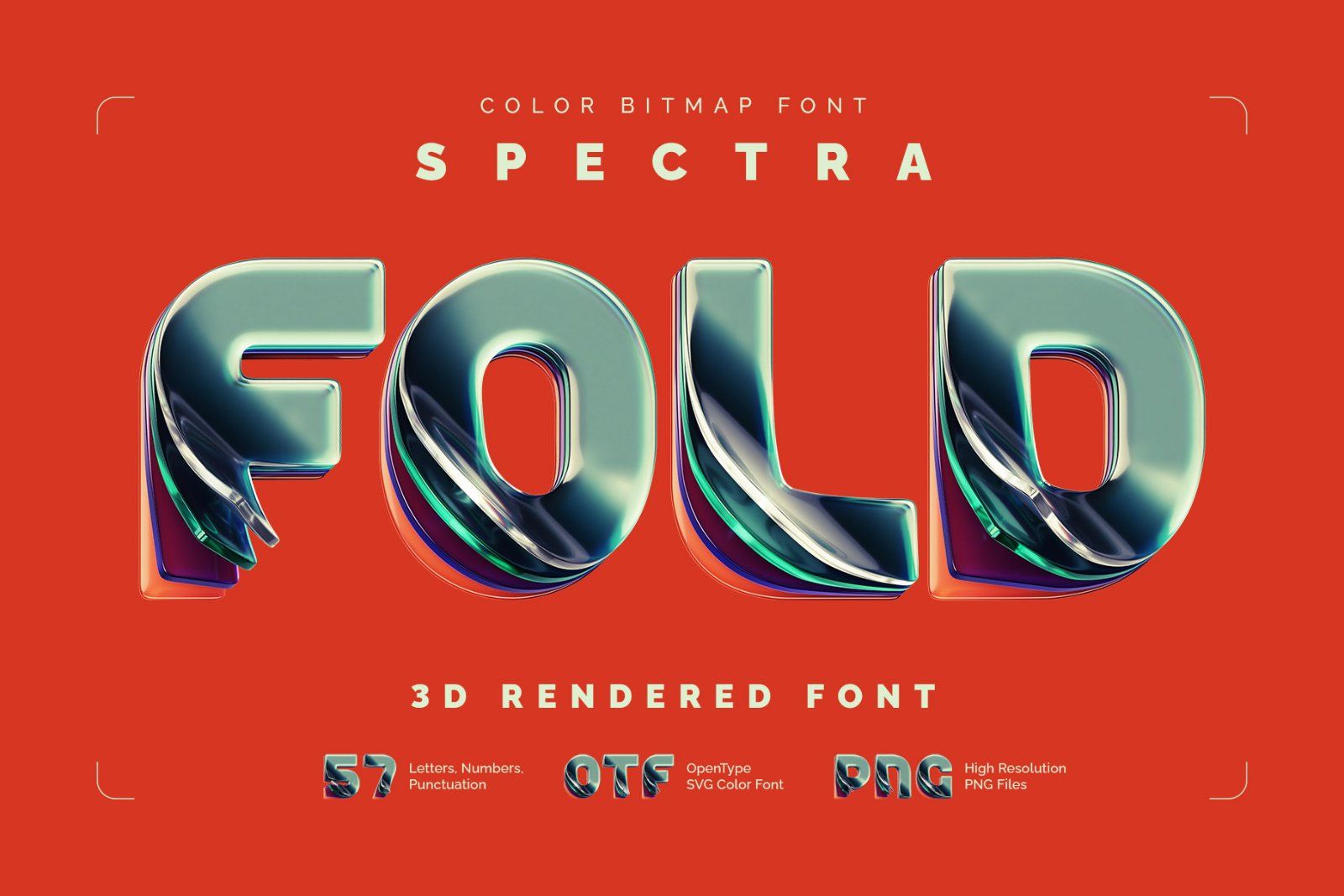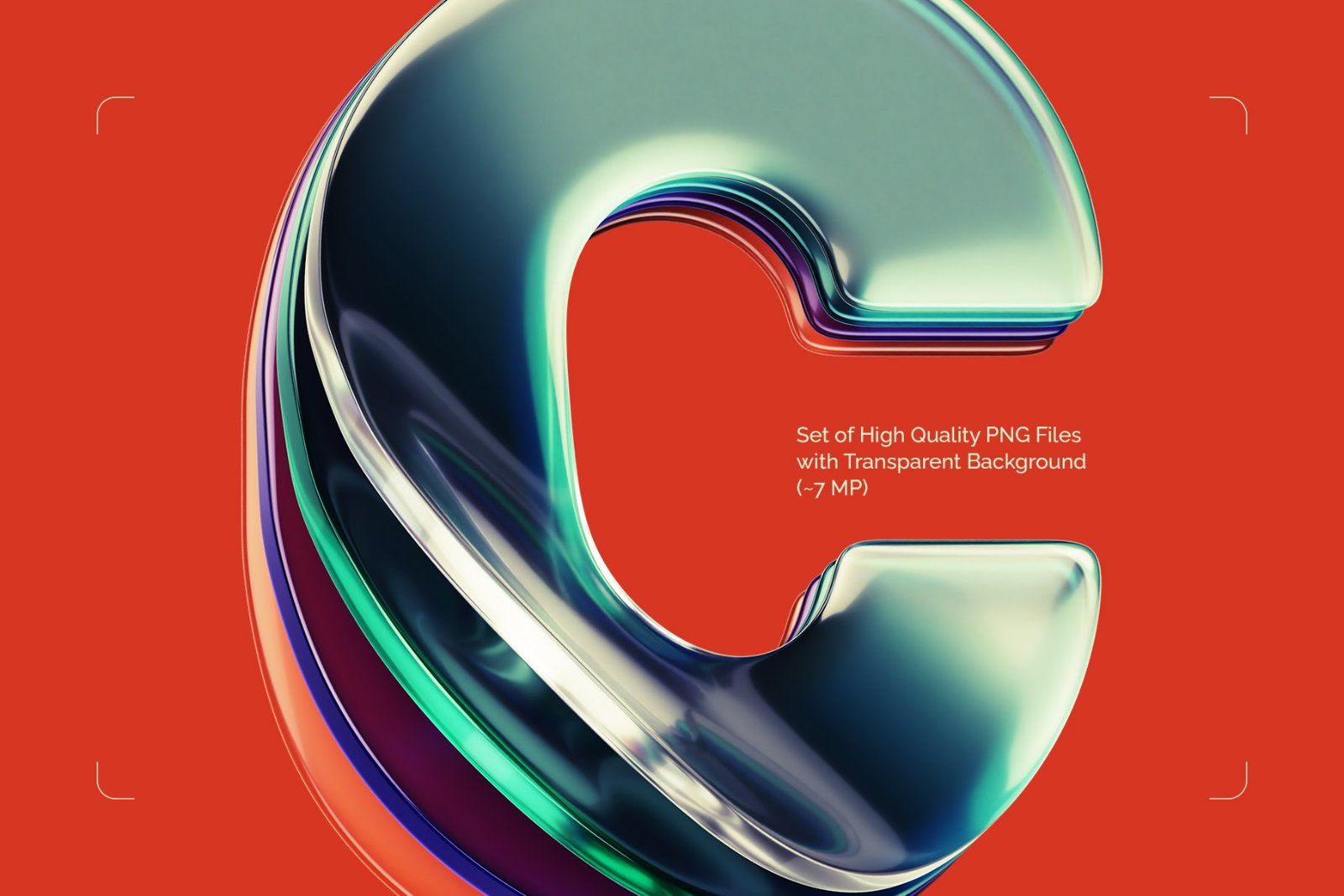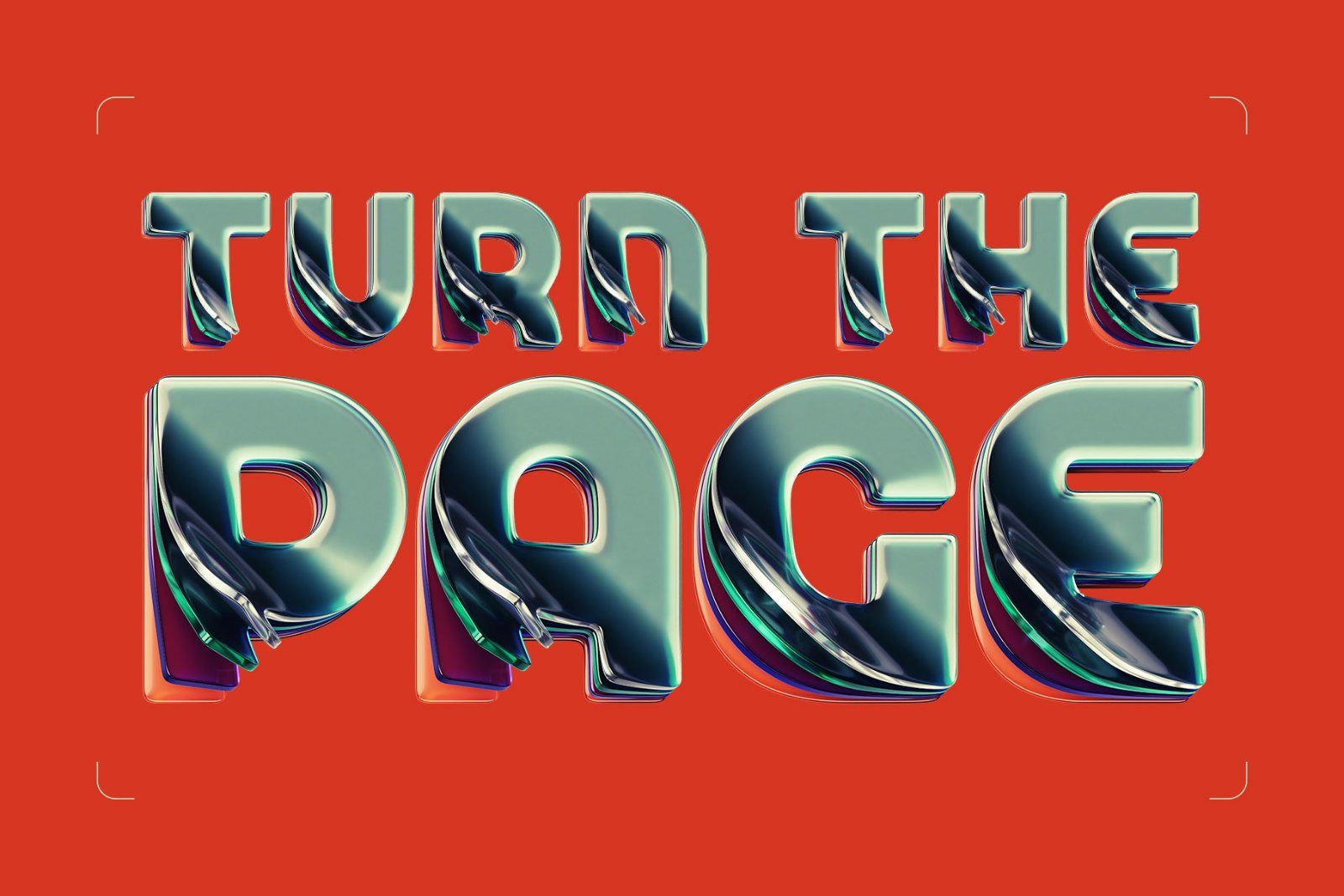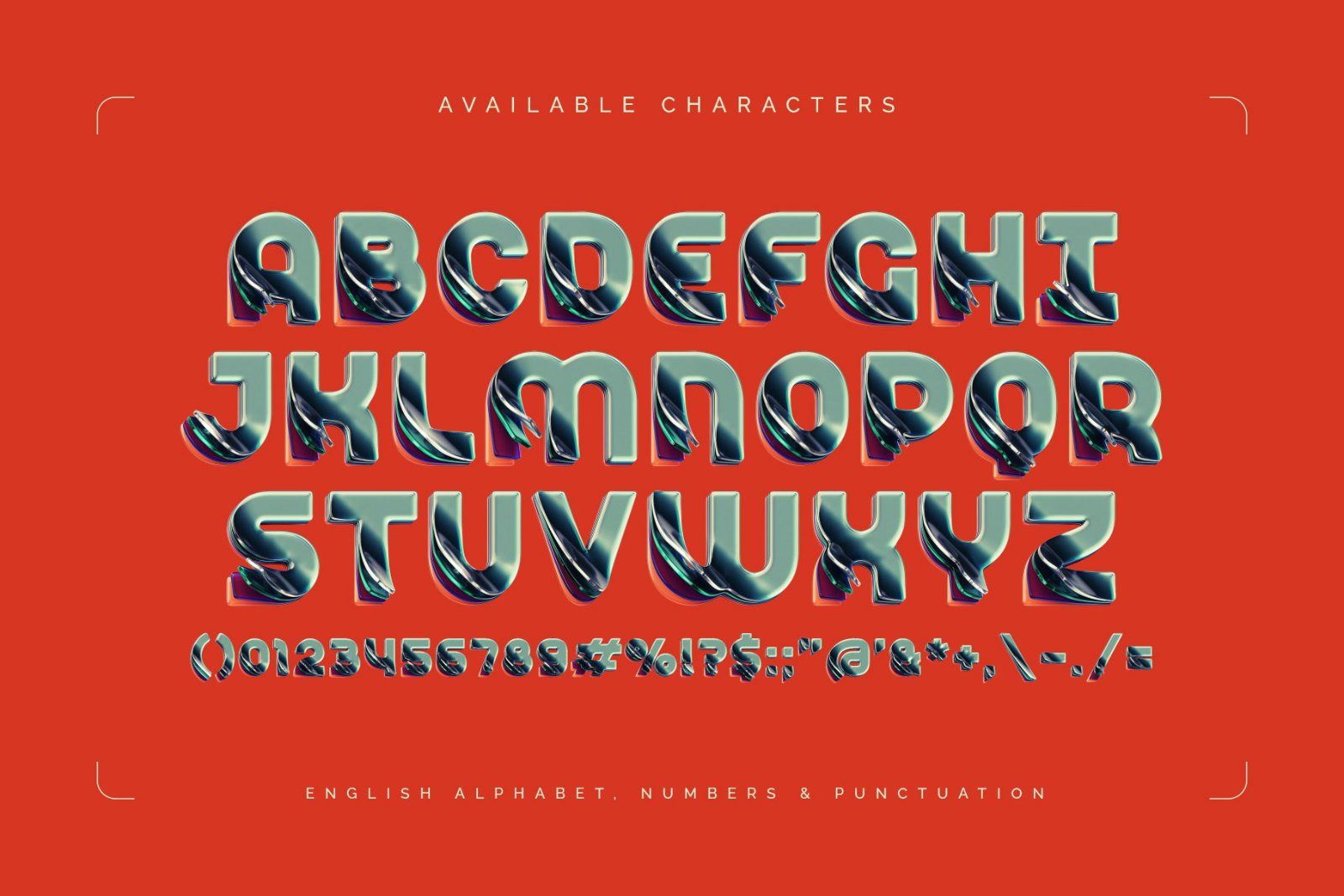
Introducing Spectra Fold, a colorful, creative font set. This 3D font has smooth, rounded shape with letters made of shiny glass layers folded like a pages.
Consider that the font supports only the English language and basic punctuation. Be sure to review the included screenshot for a complete list of available characters.